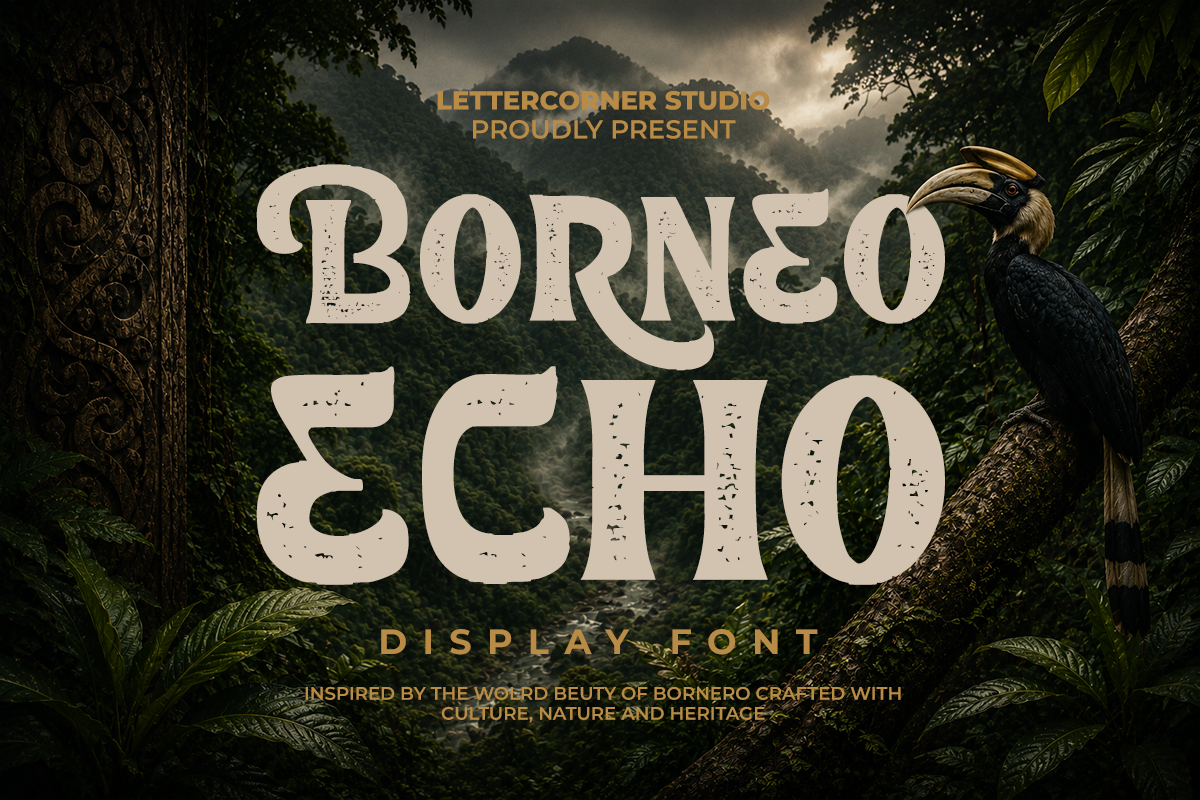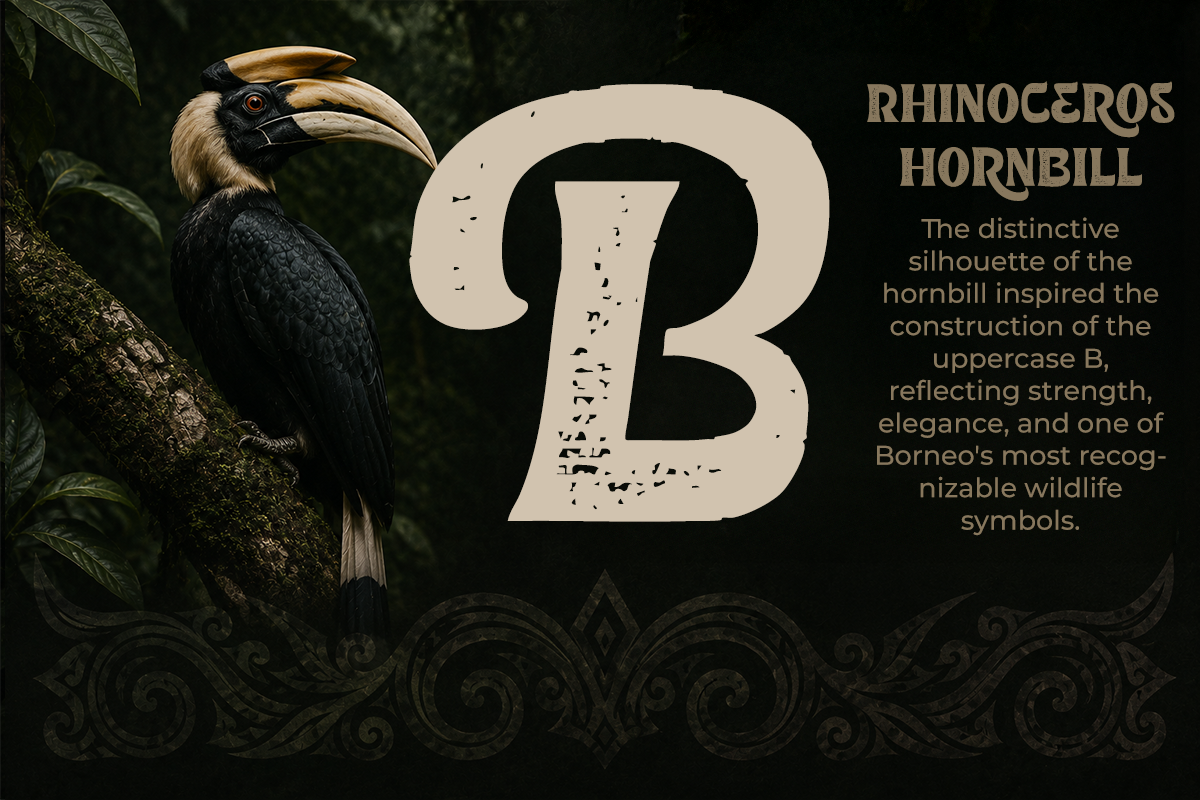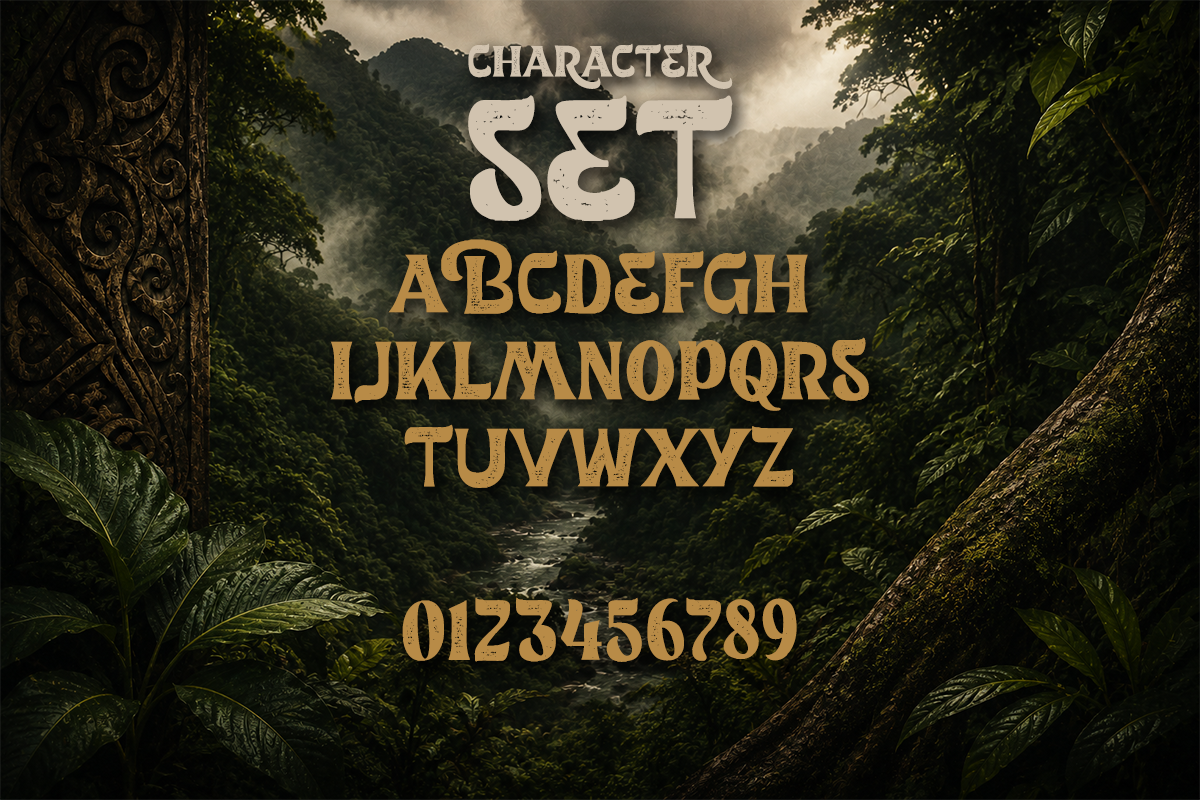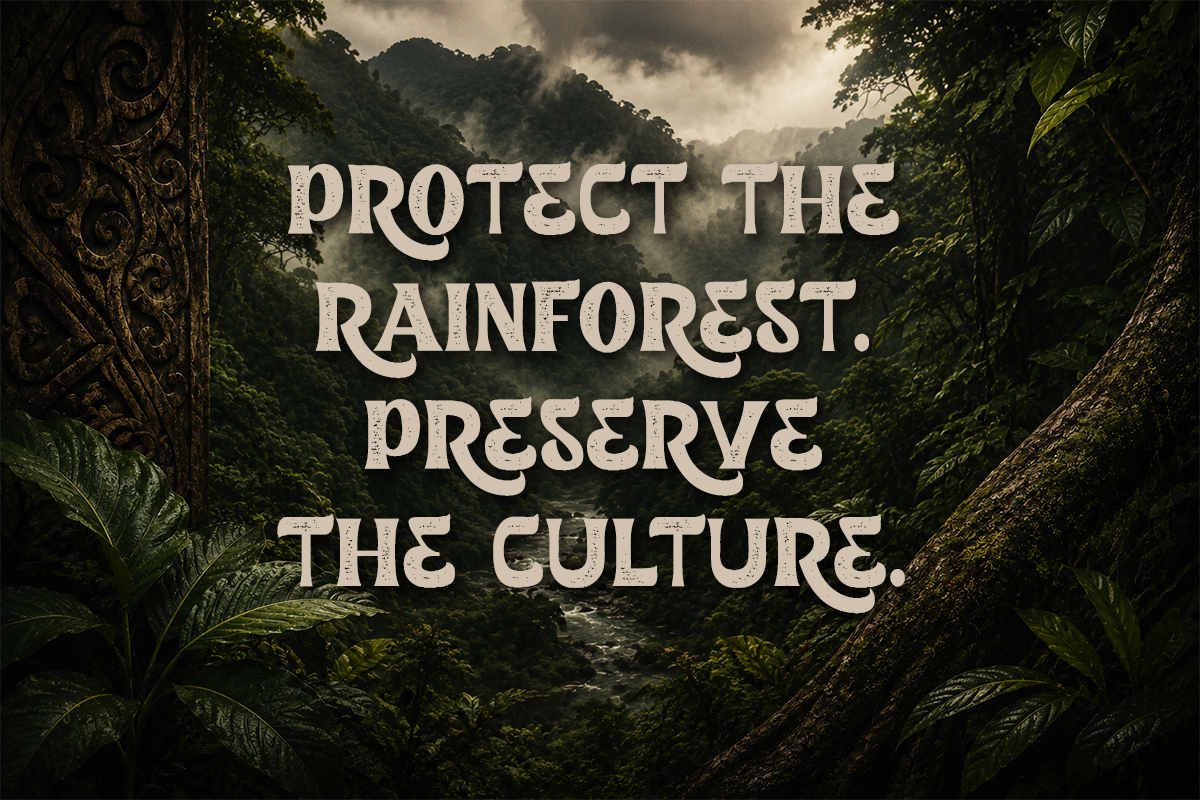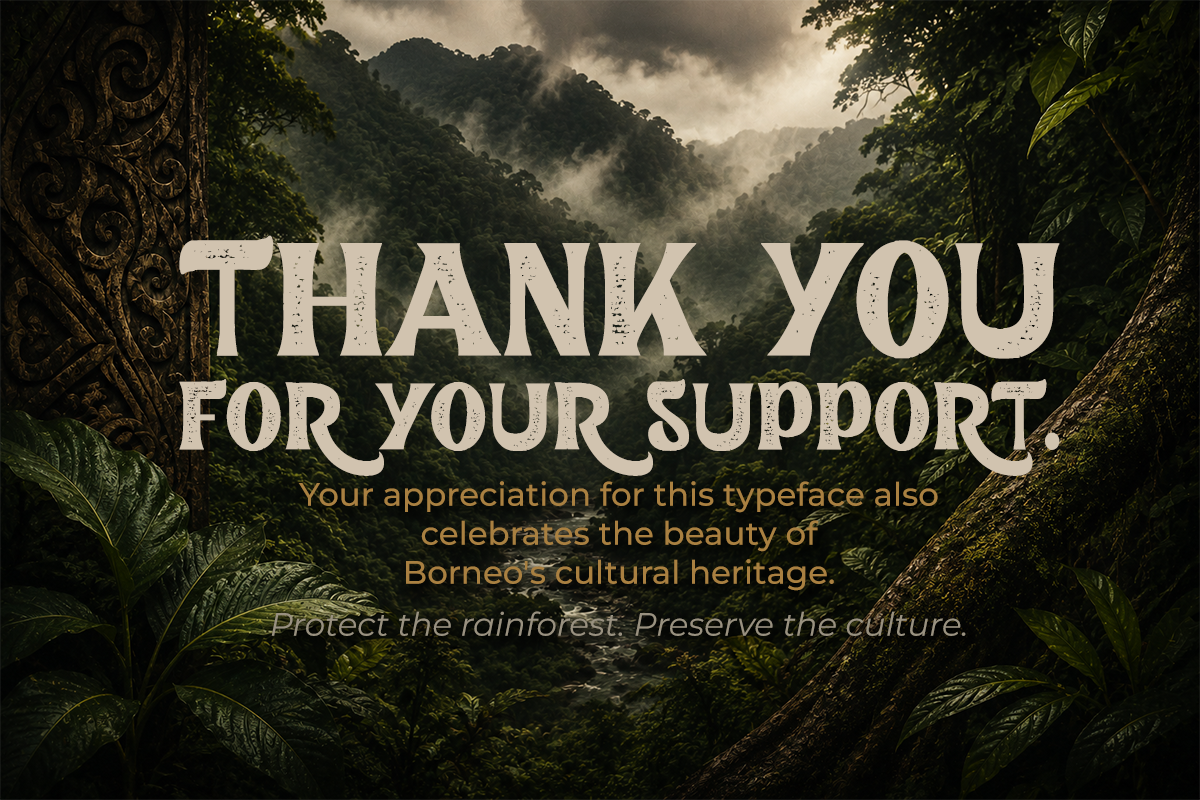
Borneo Echo
Borneo Echo — Rainforest-Inspired Display Typeface
There are places where nature doesn’t simply exist—it speaks through every towering tree, every flowing river, and every living tradition. Borneo Echo is inspired by the enduring spirit of Borneo, where one of the world’s oldest rainforests continues to echo with stories of wildlife, culture, and craftsmanship.
Designed with bold handcrafted forms and expressive organic curves, Borneo Echo captures the warmth and authenticity of traditional artistry while maintaining a strong contemporary presence. Its distinctive character is rooted in the island’s rich identity, creating a display typeface that feels both timeless and adventurous.
One of its defining details is the uppercase B, inspired by the majestic Rhinoceros Hornbill, an iconic symbol of Borneo admired for its striking silhouette and cultural significance. Complementing this inspiration are subtle references to traditional Dayak wood carvings, reflected in the flowing terminals and decorative shapes throughout the typeface.
Whether featured on coffee packaging, destination branding, outdoor apparel, cultural festivals, artisan products, restaurants, tourism campaigns, or striking editorial headlines, Borneo Echo brings the untamed beauty of the rainforest into every design.